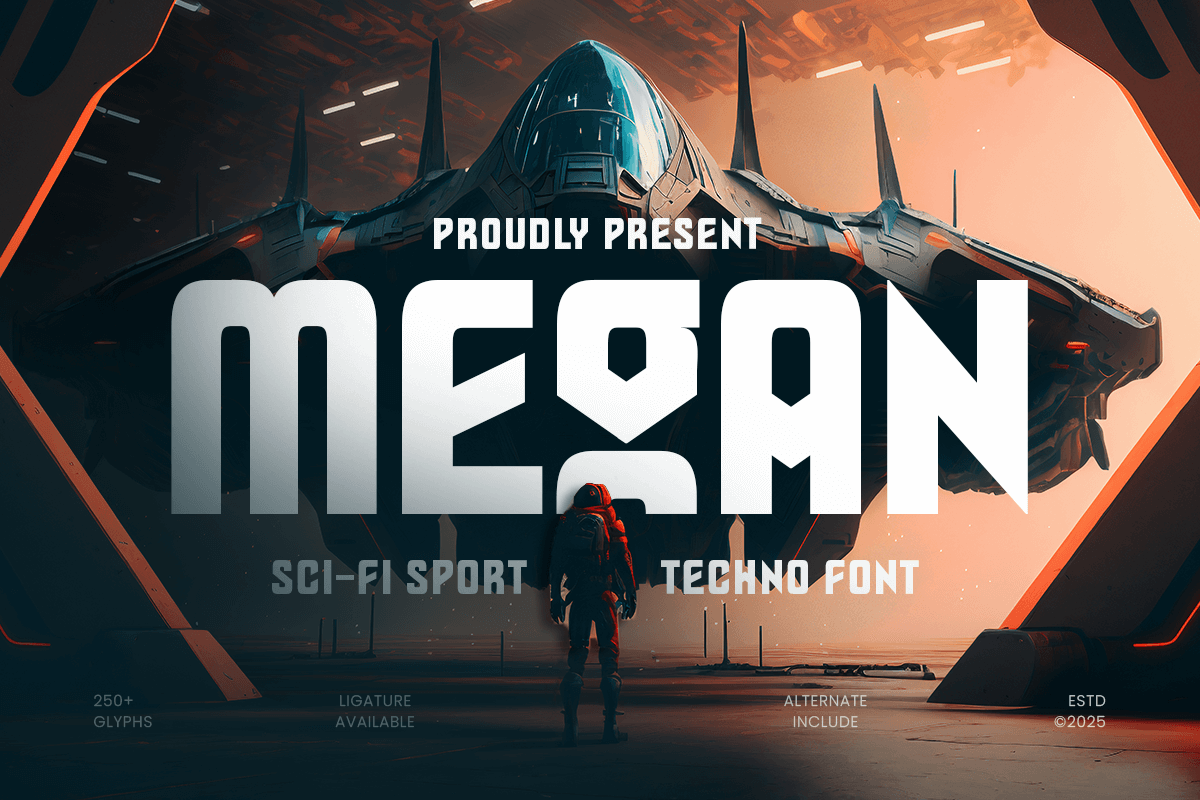
Megan
-SciFi Sport Techno FontMegan - SciFi Sport Techno Font
MEGAN is a SciFi Sport Techno Font built for high-energy design. With angular cuts, futuristic shapes, and a strong athletic vibe, this typeface is perfect for esports branding, performance products, gaming titles, racing posters, and high-tech digital visuals.
Its bold structure and sharp geometry give MEGAN a fast, powerful presence — capturing the spirit of speed, innovation, and futuristic competition. The font’s dynamic style works beautifully for logos, merchandise, social media graphics, and energetic layouts that demand instant impact.
Whether you're designing for gaming teams, sports brands, tech campaigns, or sci-fi themed concepts, MEGAN delivers clarity, strength, and modern edge across both print and digital platforms.
MEGAN – SciFi Sport Techno Font Features
Futuristic techno design inspired by sci-fi and sports graphics
Perfect for esports branding, gaming titles, posters, and digital interfaces
Bold geometric letterforms with sharp energetic details
High-impact visual presence for modern competitive aesthetics
OpenType features for enhanced typographic control